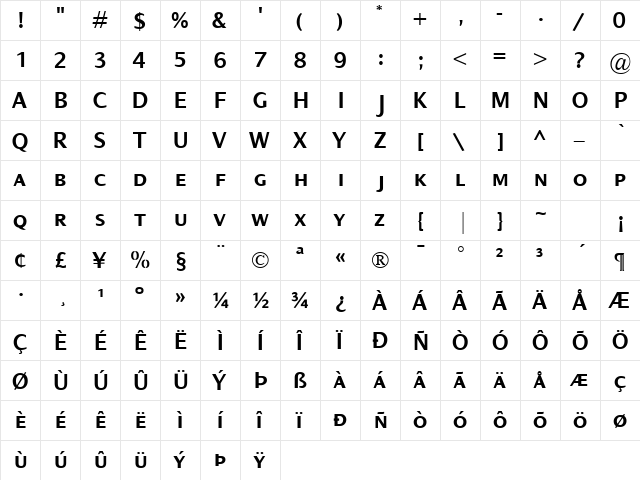
Dialog SemiBold SC Regular
Design Context for Dialog SemiBold SC Typeface
Dialog SemiBold SC is a composed and adaptable typeface that performs quietly and consistently across a wide range of design contexts. The heavy weight commands attention and anchors typographic hierarchies.